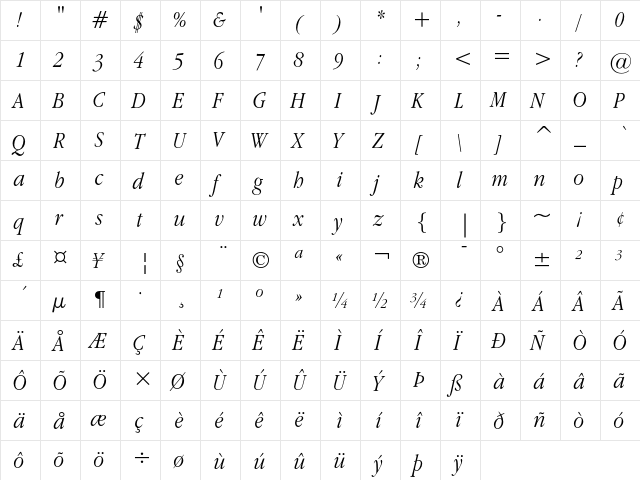
Apple Garamond Light Italic Font Preview
Design Context for Apple Garamond Typeface
Apple Garamond takes a measured approach to typography — its balanced proportions and neutral character make it a reliable workhorse for both digital and print work. The slanted form adds forward momentum and visual energy. Its slender proportions lend an understated elegance to any composition.
Pro Tip: Try Apple Garamond for annotation and caption copy alongside an upright companion — the contrast in angle creates a dynamic but ordered typographic system.